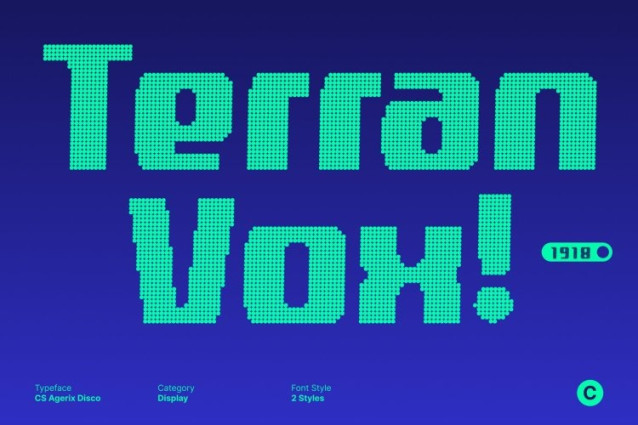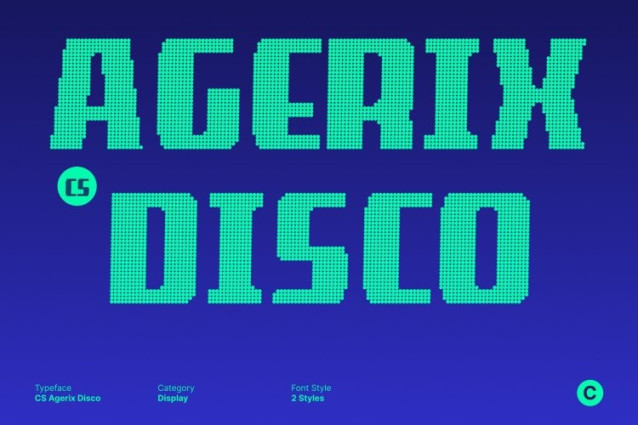
CS Agerix Disco Font
CS Agerix Disco Font This is a bold geometric sans serif font that combines industrial strength with smooth, precise construction. Built on clarity and structure, each character delivers a confident and contemporary presence. The result is a modern typeface that communicates innovation, technical excellence, and bold visual authority.
Clean Geometry with Engineered Strength
At its core, this font is driven by geometric precision. Sharp edges, balanced proportions, and disciplined forms create a strong structural foundation. This clean geometry ensures excellent readability while giving every word a striking, purposeful impact perfect for designs that require clarity, order, and modern professionalism.
Industrial Foundation with Disco-Era Energy
Inspired by industrial aesthetics, this font features solid, confident letterforms with a sleek, modern finish. The disco influence introduces rhythm and visual dynamism, adding a subtle sense of movement and energy without compromising its functional nature. This fusion of strength and vibrancy makes the font feel bold, futuristic, and expressive.
Versatile for Branding, Tech, and Creative Displays
This font adapts effortlessly across branding, logo design, techno layouts, editorial visuals, posters, and digital interfaces. Its modern industrial character paired with energetic disco flair makes it ideal for projects that aim to feel innovative, reliable, and visually engaging helping brands stand out with confidence and style.